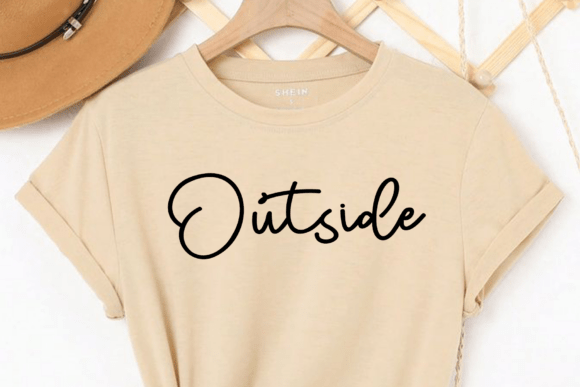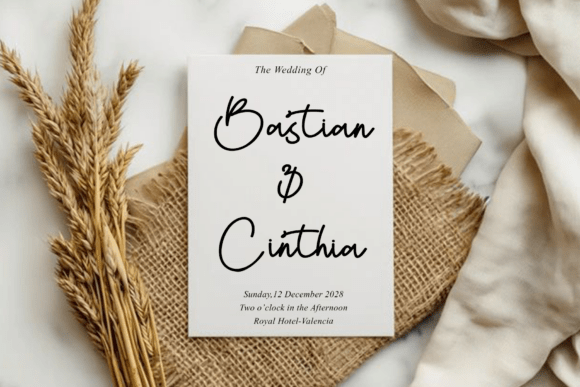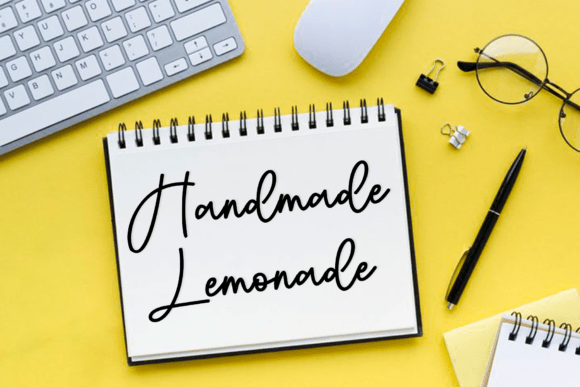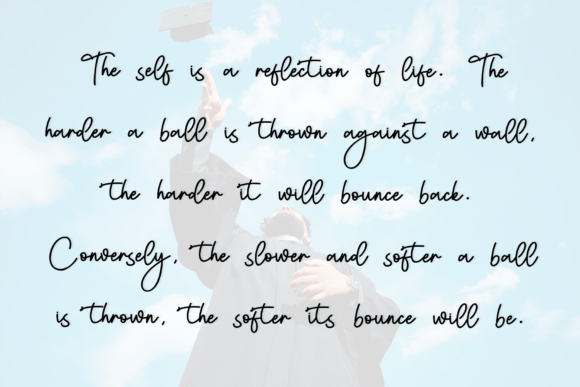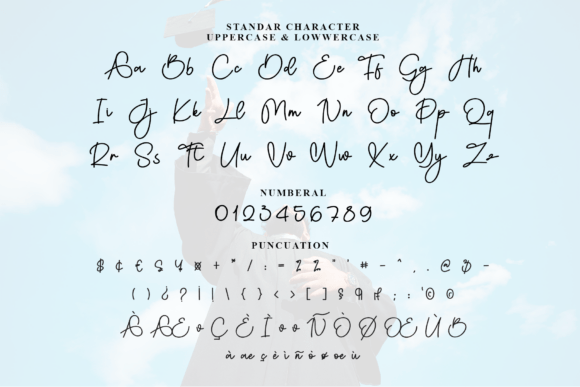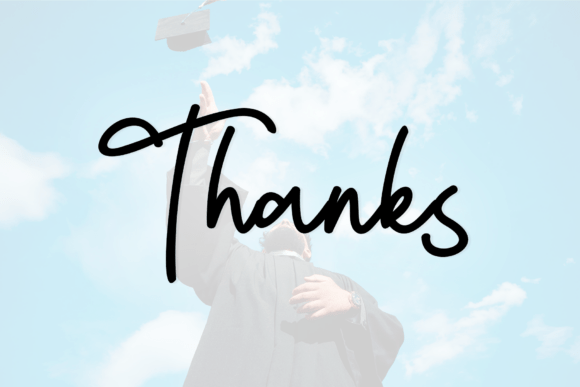
Introducing Graduation: The Elegant Handwritten Script Font for Sophisticated Designs
Are you looking for a font that exudes luxury, sophistication, and elegance? Look no further than Graduation, a beautiful handwritten script font that is perfect for creating stunning designs. Whether you’re a designer, crafter, or DIY enthusiast, Graduation is an excellent choice for any project that requires a touch of refinement and poise.
What is Graduation Font?
Graduation is a modern, fluid handwritten script font that captures the essence of a sophisticated typeface. Its elegant strokes, beautiful ligatures, and flowing curves make it perfect for creating luxury wedding stationery, intimate event branding, high-end editorial signatures, and sophisticated lifestyle photography overlays.
Key Features of Graduation Font
• Elegant and Fluid Design: Graduation features a smooth, flowing design that is perfect for creating sophisticated and luxurious designs.
• Handwritten Script Style: This font has a beautiful handwritten script style that adds a personal touch to any design.
• Modern and Sophisticated: Graduation is a modern font that is perfect for designers and crafters who want to create contemporary and stylish designs.
• Perfect for Luxury Designs: This font is ideal for creating luxury wedding stationery, high-end editorial signatures, and sophisticated lifestyle photography overlays.
Use Cases for Graduation Font
Graduation is a versatile font that can be used for a variety of design projects. Here are some use cases where this font shines:
• Luxury Wedding Stationery: Graduation is perfect for creating elegant and sophisticated wedding stationery, including invitations, save-the-date cards, and thank-you notes.
• Intimate Event Branding: This font is ideal for creating branding materials for intimate events, such as baby showers, bridal showers, and anniversaries.
• High-End Editorial Signatures: Graduation can be used to create beautiful and sophisticated editorial signatures for high-end publications.
• Sophisticated Lifestyle Photography Overlays: This font is perfect for adding a touch of elegance to lifestyle photography overlays, including quotes, captions, and titles.
Tips for Using Graduation Font
Here are some tips for using Graduation font in your designs:
• Use it Sparingly: Graduation is a elegant font, so use it sparingly to avoid overwhelming your design.
• Pair it with Simple Fonts: Pair Graduation with simple fonts to create a beautiful contrast and add visual interest to your design.
• Experiment with Colors: Graduation looks stunning in a variety of colors, so experiment with different colors to find the one that works best for your design.
Font Name Graduation Font
Author Black line
Graduation is a beautiful and elegant handwritten script font that is perfect for creating sophisticated and luxurious designs. Its modern and fluid design makes it ideal for luxury wedding stationery, intimate event branding, high-end editorial signatures, and sophisticated lifestyle photography overlays. With its versatility and elegance, Graduation is a must-have font for designers and crafters who want to create stunning designs.